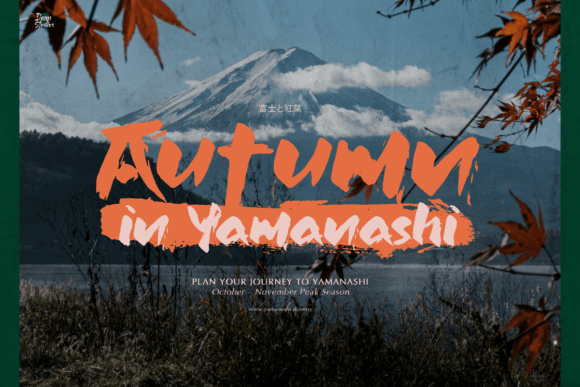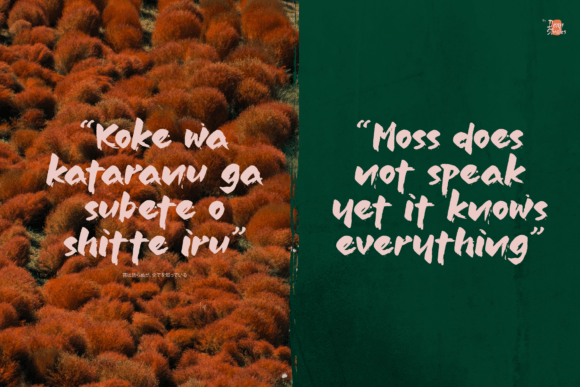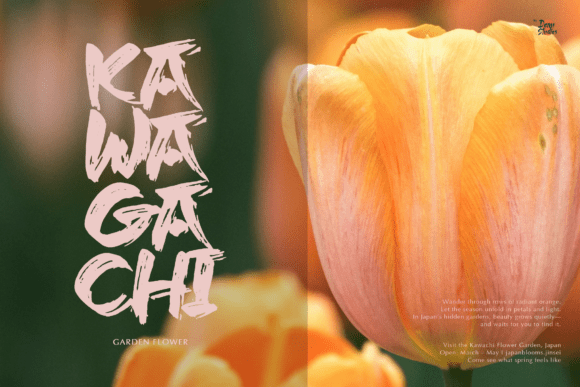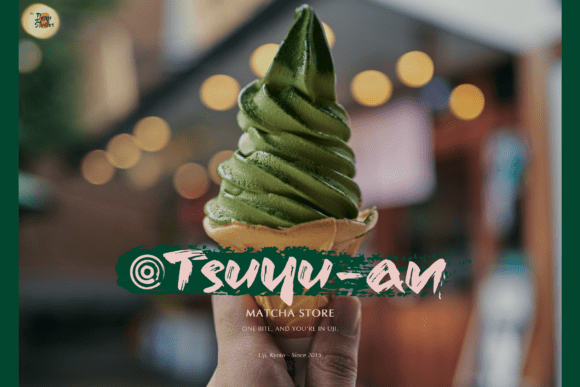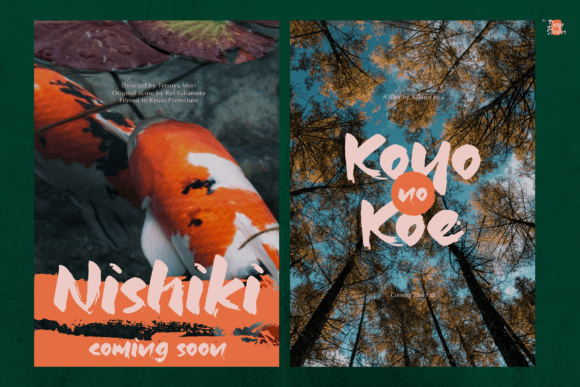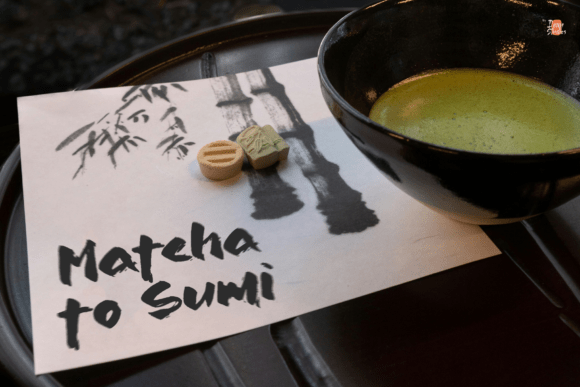
Introduction to Jinsei Font
Have you ever been stuck in front of a blank page, searching for the perfect font to bring your creative vision to life? The frustration is real, but the solution might be simpler than you think. Imagine having access to a stunning Japanese brush font that can elevate your designs to the next level, without breaking the bank or sacrificing quality.
Enter the Jinsei Font, a beautiful design resource that’s perfect for any creative project. With its high-quality, transparent background, this font is ideal for logos, branding projects, and even homeware designs. Whether you’re working on a logo for a new business or designing a set of greeting cards for a special occasion, the Jinsei Font is sure to add a touch of elegance and sophistication.
Key Features of Jinsei Font
- High-quality design: Jinsei Font is a well-crafted, professional-looking font ideal for creative projects requiring a high level of visual sophistication.
- Transparent background: This font features a transparent background, making it easy to place over various backgrounds and designs.
- Design resource: The font is perfect for use in graphic design, digital art, and other creative endeavors where a unique and stylish font is desired.
- Resolution: Supports high-resolution designs, making it suitable for use in large-format prints and high-quality digital displays.
Honest Review: Jinsei Font
One of the things that stands out about the Jinsei Font is its high quality. The design is crisp and clean, with a transparent background that makes it easy to work with. The font is also highly versatile, with a range of styles and weights to choose from.
Here are some things that work well with the Jinsei Font:
- ✨ High quality design
- ✨ Transparent background
- ✨ Versatile with multiple styles and weights
- ⚠️ Limited font styles compared to commercial fonts
- ⚠️ May not be suitable for complex typography projects
Overall, I’m really impressed with the Jinsei Font. It’s a great design resource for anyone looking for a high-quality, free font. Just be aware of the limitations, and you’ll be all set for your next creative project.
Tips for Getting the Most Out of the Jinsei Font
To get the most out of the Jinsei Font, use it with a transparent background to create a high-quality design. This will allow you to layer the font over other design elements, creating a unique and eye-catching effect. Experiment with different font sizes and colors to add depth and visual interest to your design.
Common Use Cases for the Jinsei Font
The Jinsei Font is a versatile font that can be used in a variety of creative projects, including logos, posters, business cards, and social media graphics. Its high-quality design and transparent background make it an ideal choice for designers looking to create visually appealing and professional-looking designs.